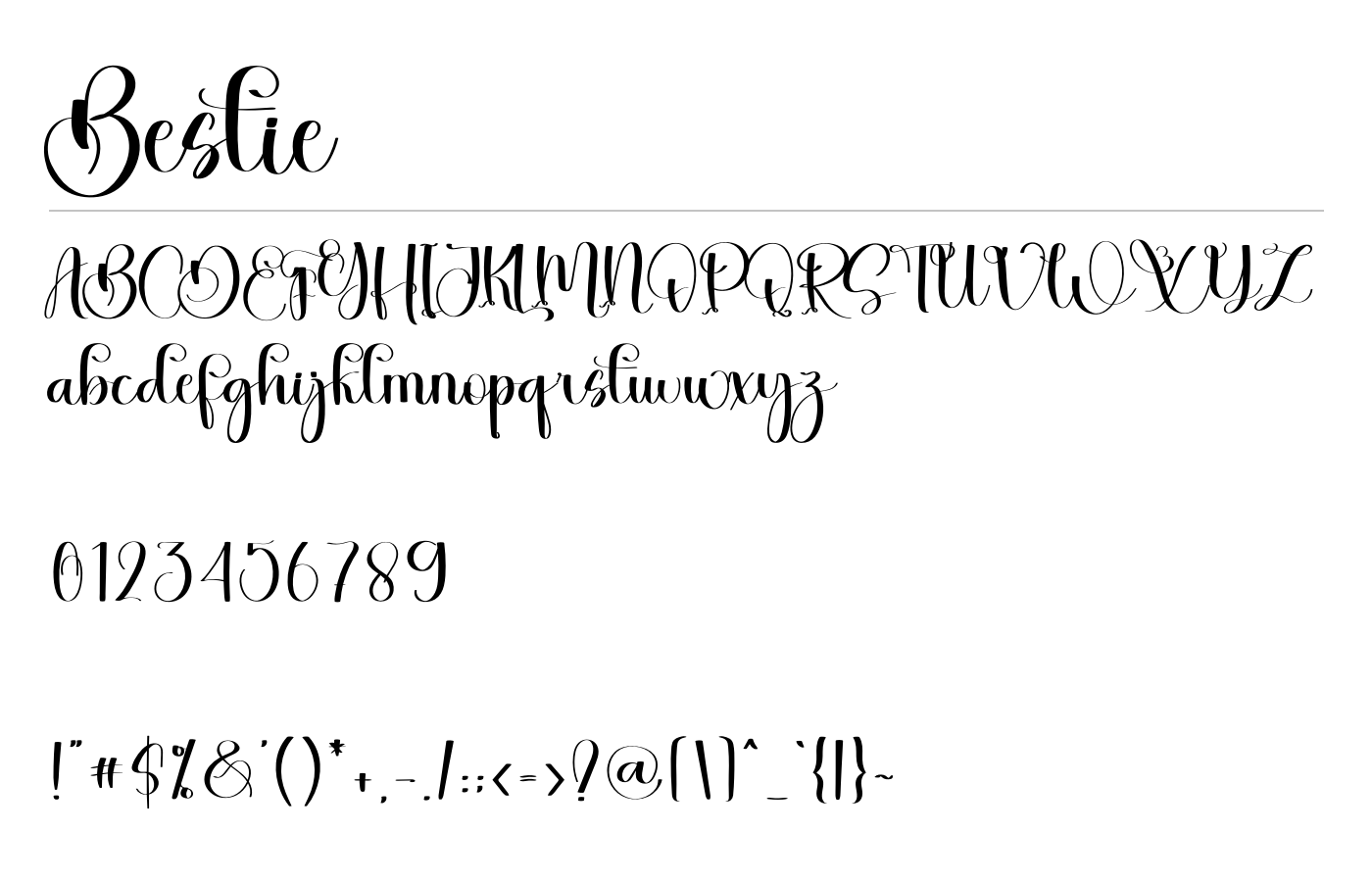
Bestie Font is an elegant and playful script typeface characterized by its flowing, calligraphic strokes and high contrast between thick and thin lines. Its delicate swashes and unique letterforms create a stylish and feminine aesthetic, making it ideal for wedding invitations, beauty branding, and other creative design projects that seek a touch of sophistication and charm. This font works best in headlines and decorative uses where its intricate details can shine.
Bestie Font
About Bestie Font